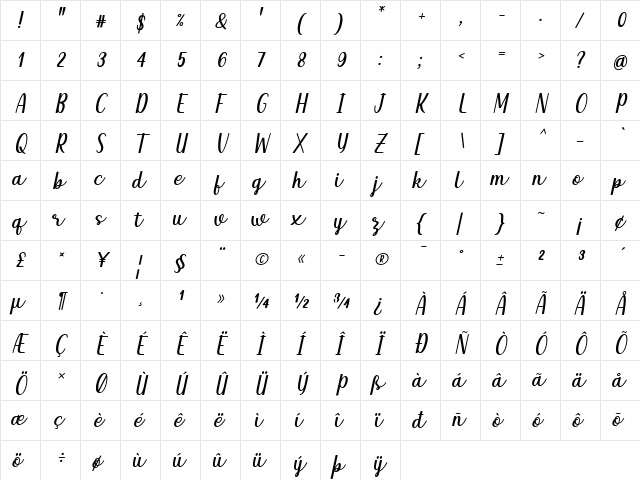
Qeiza Italic
Design Context for Qeiza Typeface
Qeiza is a composed and adaptable typeface that performs quietly and consistently across a wide range of design contexts. The slanted form adds forward momentum and visual energy.
Pro Tip: Try Qeiza for annotation and caption copy alongside an upright companion — the contrast in angle creates a dynamic but ordered typographic system.